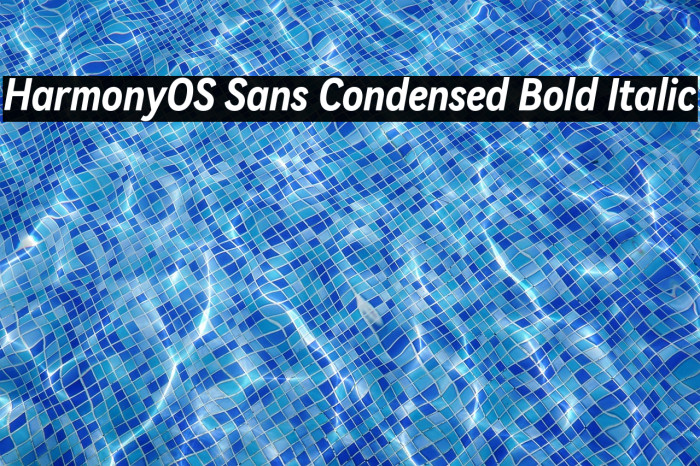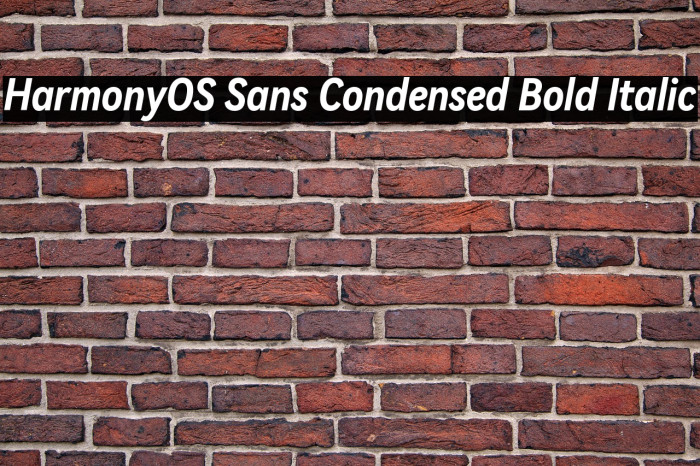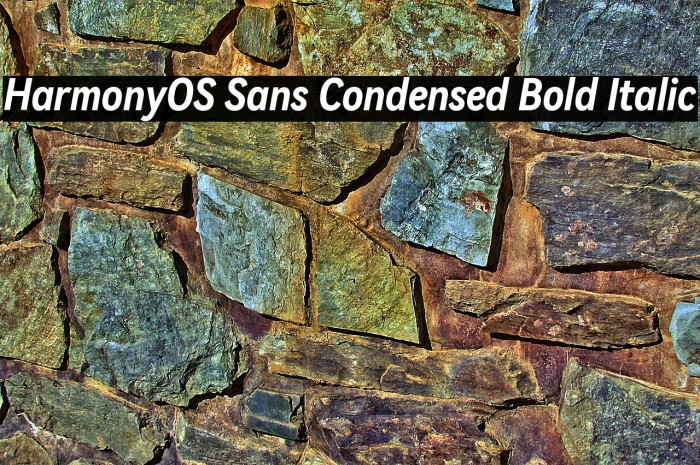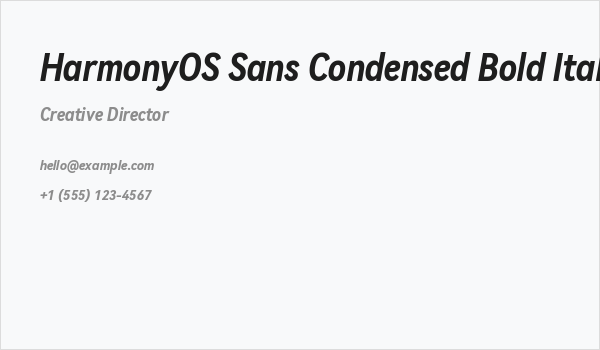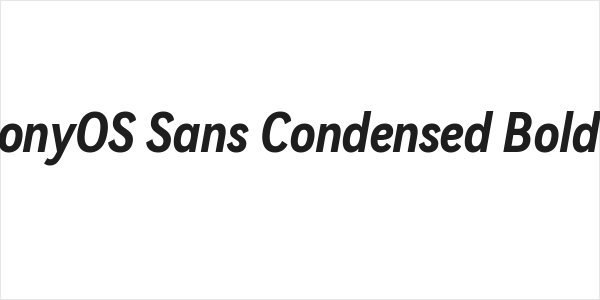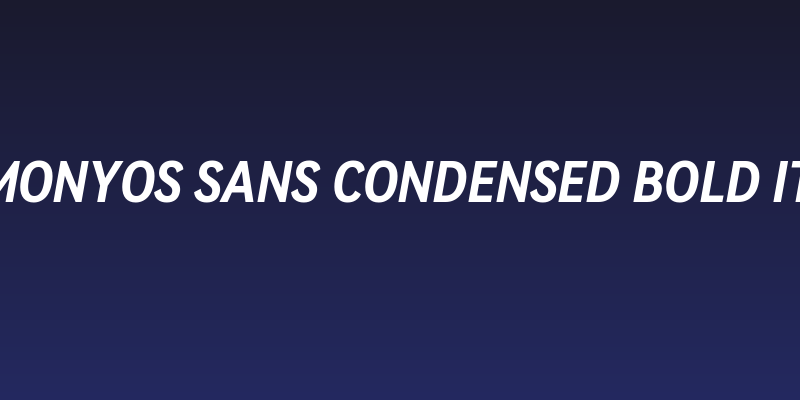
HarmonyOS Sans Condensed Bold Italic Font
HarmonyOS Sans Condensed Bold Italic Description
This font exhibits a modern and sleek design with a condensed structure, making it ideal for space-saving applications. The bold weight ensures strong visibility and emphasis, while the italic style adds a dynamic and forward-leaning appearance. The characters are well-defined with clean lines and minimalistic features, providing a contemporary aesthetic. The uppercase and lowercase letters maintain a consistent style, and the numerals are clear and legible. Special characters are included, enhancing its versatility for various uses.
| Use Case | Headlines, Logos, Digital Interfaces |
| Proposed Projects | Ideal for branding, advertising, headlines, and digital interfaces where space is limited. |